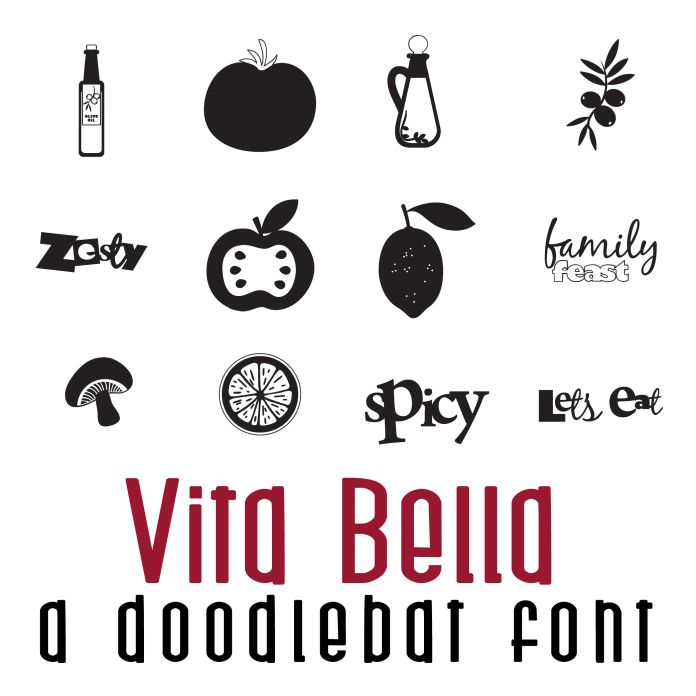
Vita Bella Doodlebat Font
This doodlebat font features 26 Italian themed cooking images perfect for cards, crafts, gifts, decor, scrapbook pages, planner stickers, and more!